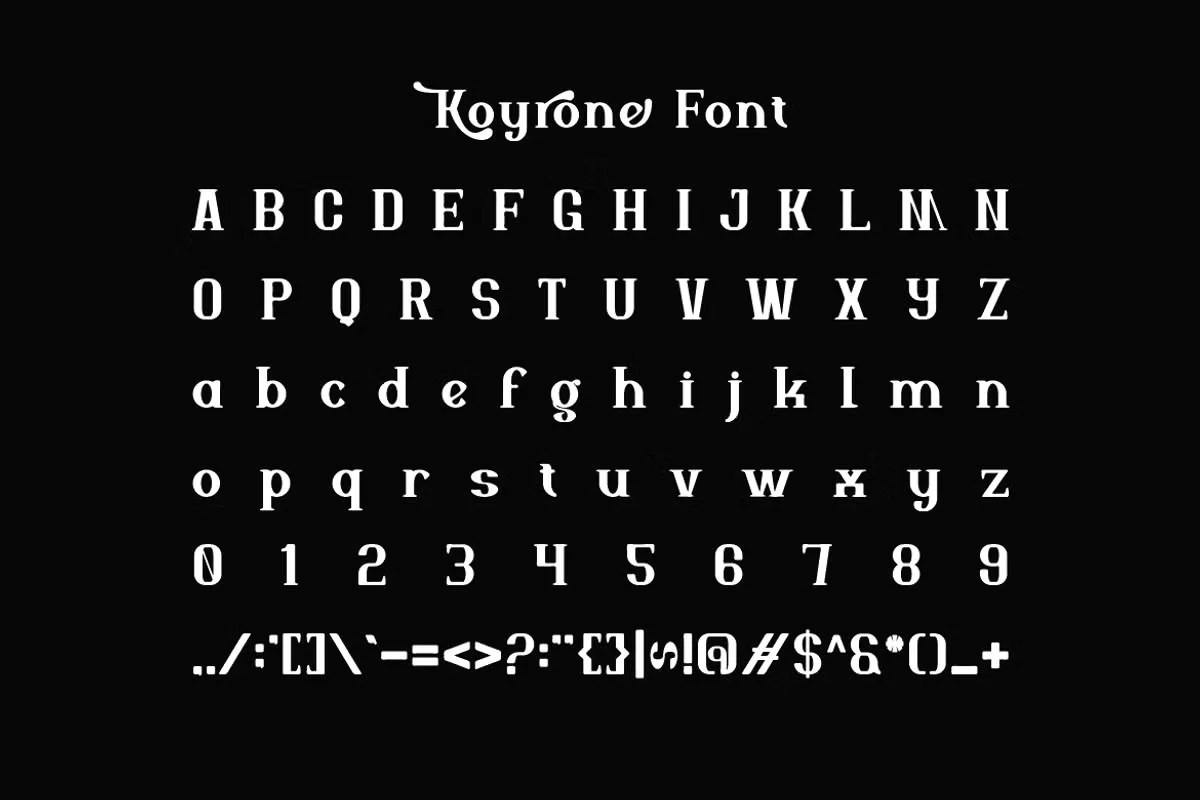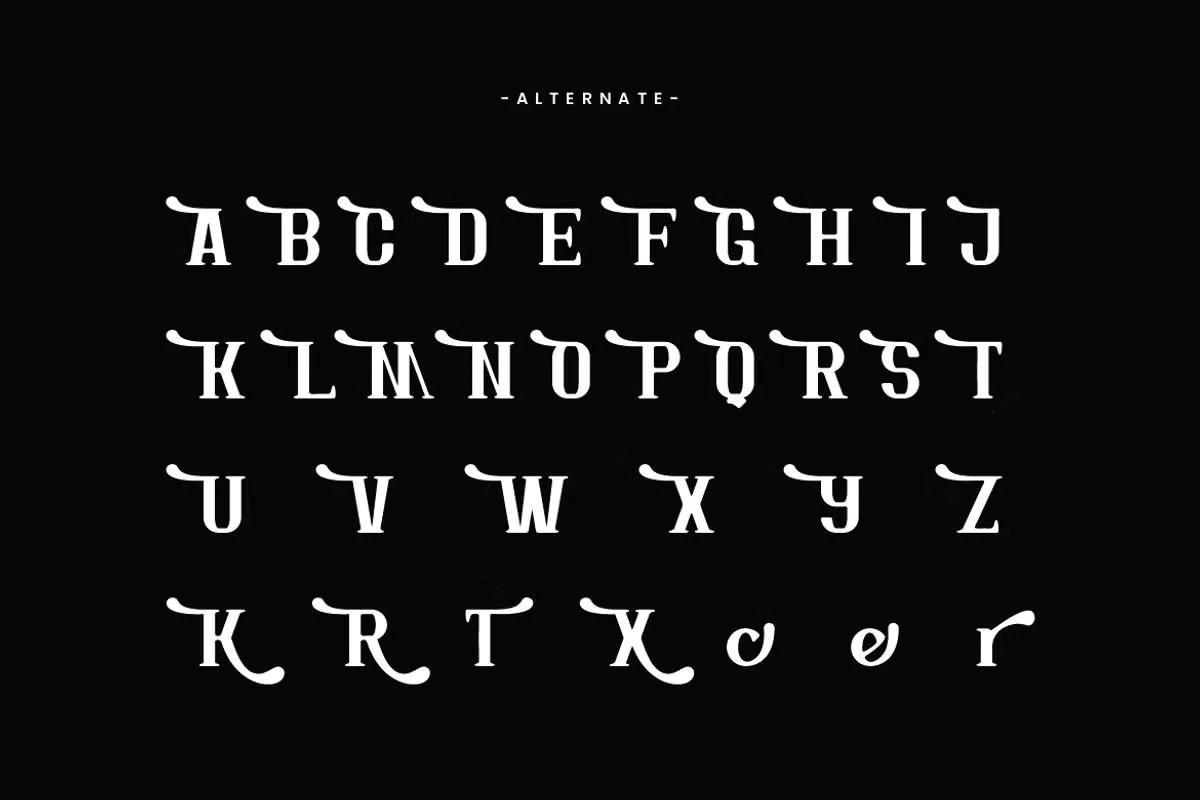
Koyrone by Iqsiart Studio. This is an elegant and authoritative classic serif font that brings a sense of timeless dignity to your design work. The font features refined letterforms with a strong, traditional structure. Iqsiart Studio designed Koyrone for projects that require a touch of class and historical gravitas. It speaks with a confident and respected voice, lending an air of importance to any text.
This font is a superb choice for any project that needs to convey prestige. Specifically, it works beautifully for book covers and literary journals. It sets a sophisticated tone immediately for the reader. Furthermore, this classic serif font is ideal for creating distinguished logos and branding for institutions. Think of universities, law firms, or fine art galleries that need to communicate authority and tradition. Use it to add a touch of formality and elegance to certificates or official event invitations.
• Elegant and classic serif style
• Features refined and authoritative letterforms
• Ideal for literary, branding, and formal designs
• Provides a timeless and dignified look
Koyrone